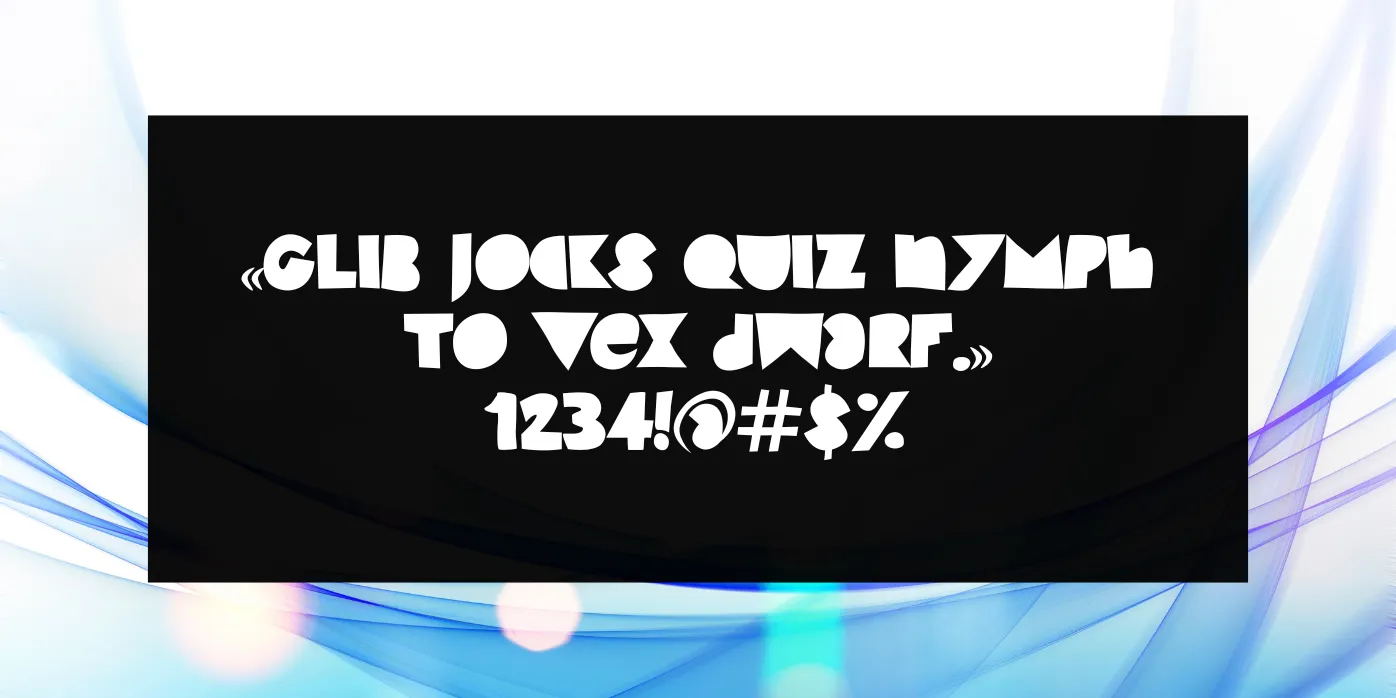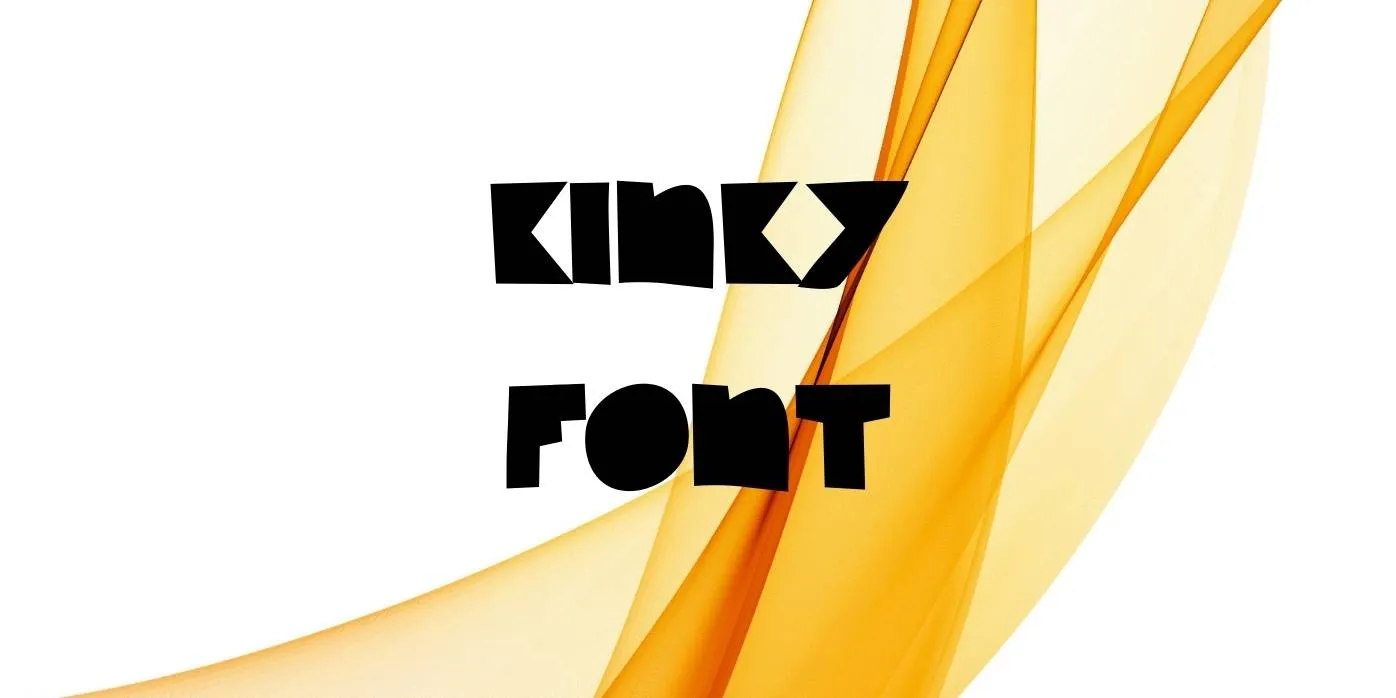
Kinky Font
Here we discuss details of Kinky font. It was designed by the author 5ive. Its development started in 2015 inspired by neon signs. It falls under version 1.002 bets.
This font style is twisted and has loop characters which give an attractive look. It contains characters set in seven stylistic looks. It has a sexy look feature in it which comes in 6 different weights. All Latin European languages are supported by this font.